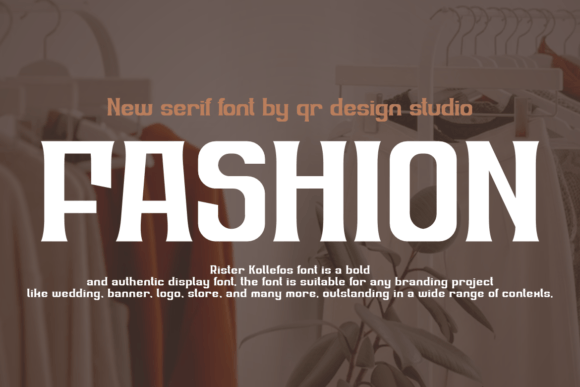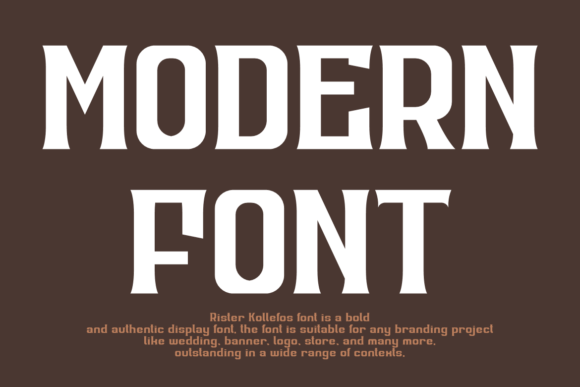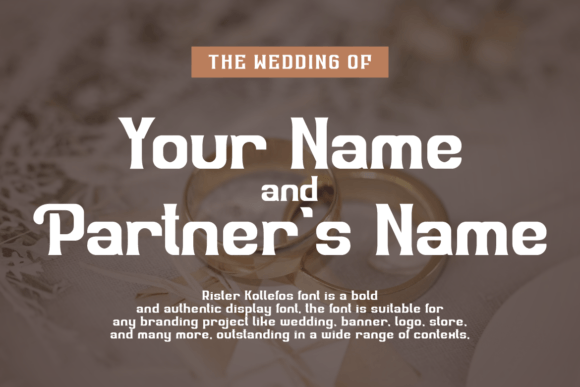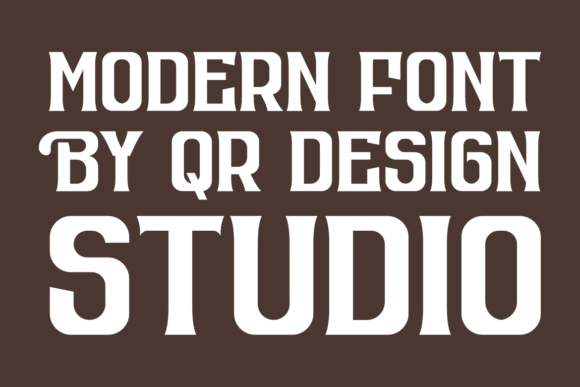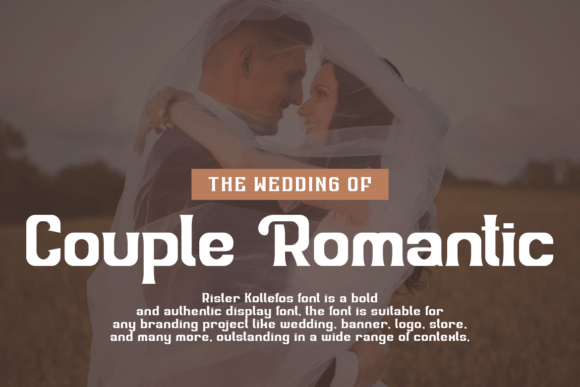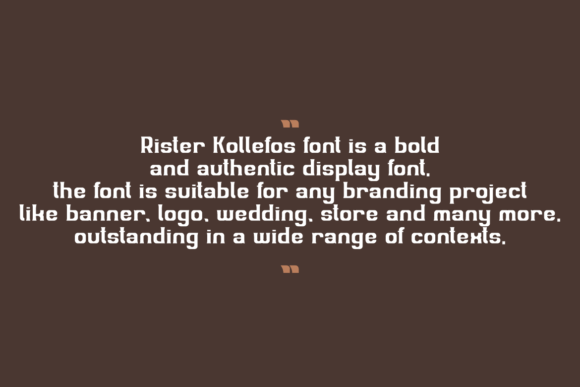
Introduction to Rister Kollefos Font
Rister Kollefos is a bold and authentic display font.
The font is suitable for any branding project like logos, fashion designs, posters, and many more .
Key Features of Rister Kollefos Font